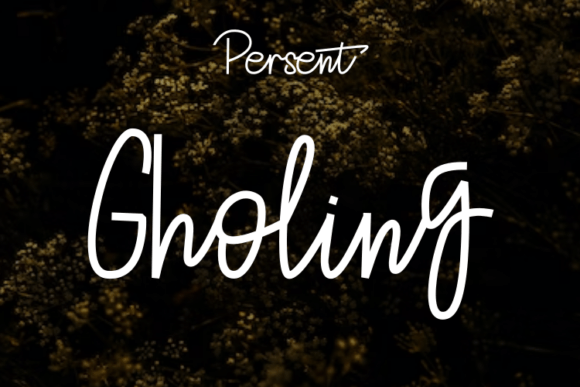
Have you ever sat in front of your computer, staring at a blank screen, waiting for inspiration to strike? For many designers, this is the moment when creativity flows, and ideas begin to take shape. For me, it was the moment I discovered the Gholing Font, a script typeface that has since become a go-to choice for many of my design projects.
Gholing Font is a simple yet elegant script typeface designed to add a touch of luxury to any design. Perfect for logo designs, book titles, fashion brands, and magazine covers, this versatile font is sure to elevate your creative projects to the next level. Its modern look and feel make it an ideal choice for designers looking to add a touch of sophistication to their work.
Gholing Font Key Features
- Unique Characteristics: The Gholing font features a unique blend of traditional and modern elements, with intricate details and subtle flourishes that set it apart from other fonts.
Gholing Font Review
I had the chance to work with the Gholing font, and overall, it’s a solid addition to any design project. ✨ One of the things I liked about it is its unique blend of modern and traditional elements. The font has a distinct, exotic feel that can add a touch of sophistication to any design.
Another aspect that works well is its legibility. Gholing is easy to read, even at smaller font sizes, making it a great choice for body text or headings. The font also has a wide range of weights and styles, which allows for a lot of creative flexibility.
Now, let’s talk about some limitations. ⚠️ One of the main issues I encountered was the font’s lack of support for certain special characters. If you’re working on a project that requires a lot of international characters, you may find yourself limited by Gholing’s character set.
Pros and Cons:
- ✨ Unique blend of modern and traditional elements
- ✨ High legibility, even at smaller font sizes
- ⚠️ Limited support for special characters
Overall, I think Gholing is a great choice for designers who want to add some visual interest to their projects. While it has some limitations, its unique style and high legibility make it a solid addition to any design arsenal.
For the best results, use the Gholing font in bold or italic styles to add emphasis to your text. Experiment with different font sizes to create visual hierarchy.
The Gholing font is ideal for creating unique and eye-catching titles, headings, and graphics. It’s also great for adding a touch of sophistication to your branding materials, such as logos and business cards.